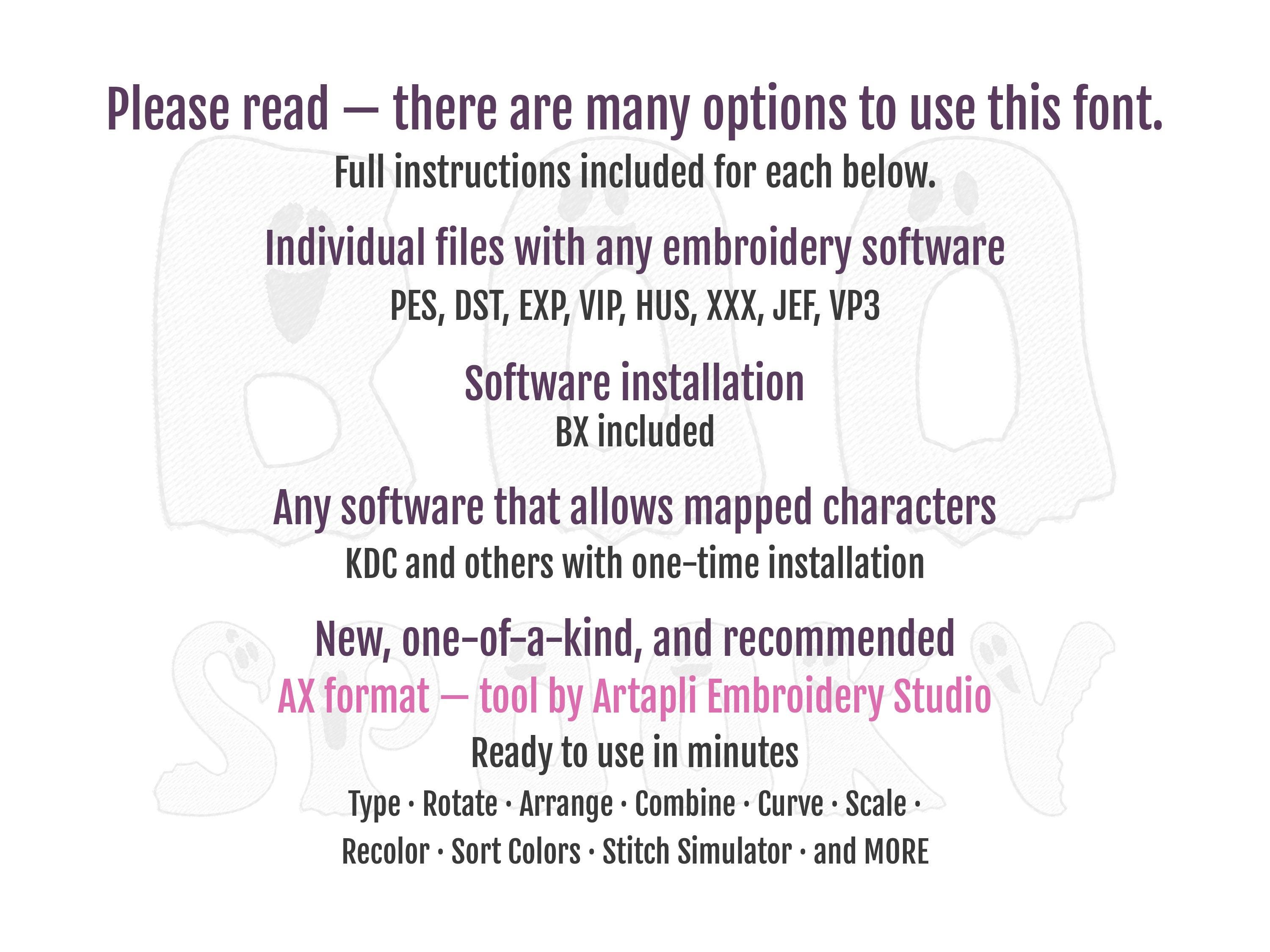
Ghost FONT fill stitch alphabet monogram cute little Ghost kids baby spooky Boo Halloween machine embroidery designs sizes 1.8 to 3 inch BX
Whole alphabet uppercase letters A-Z.